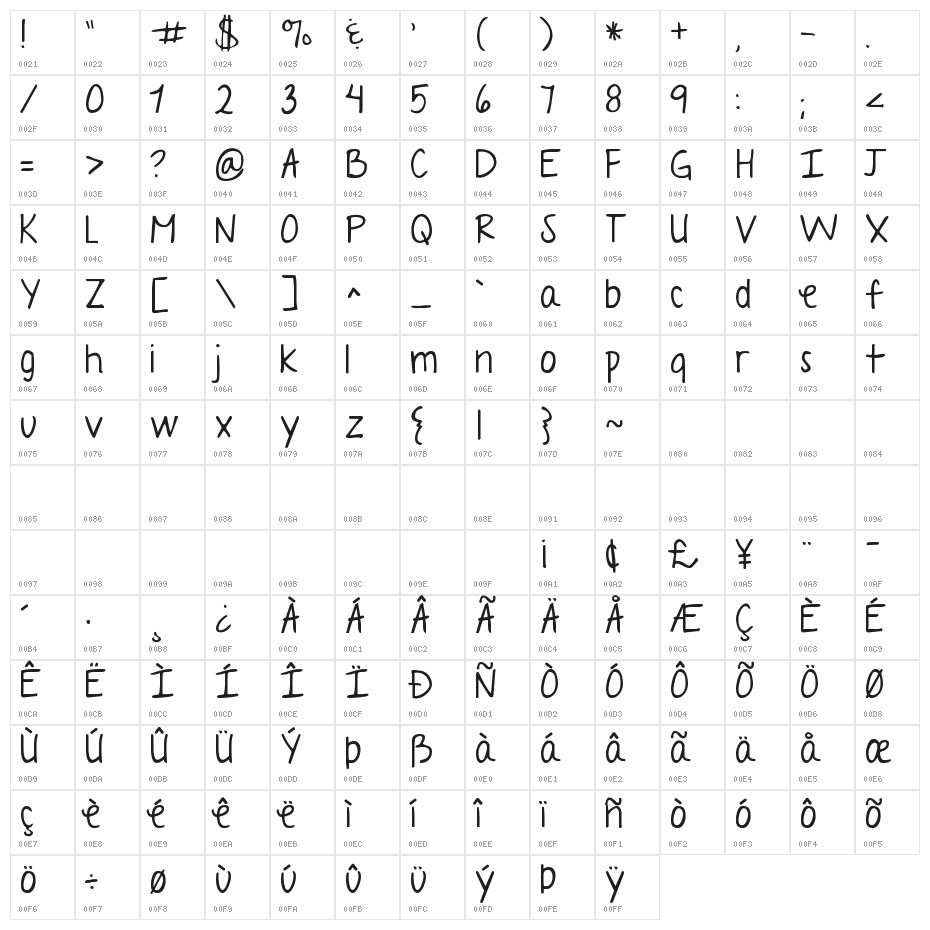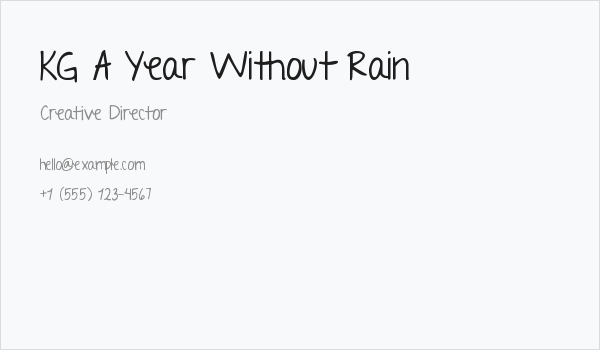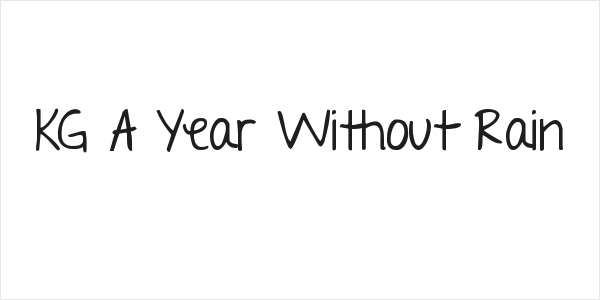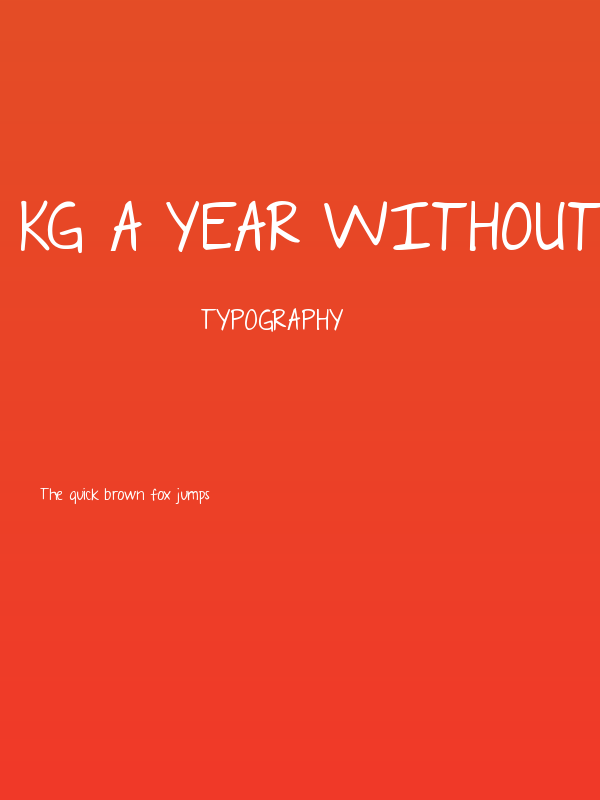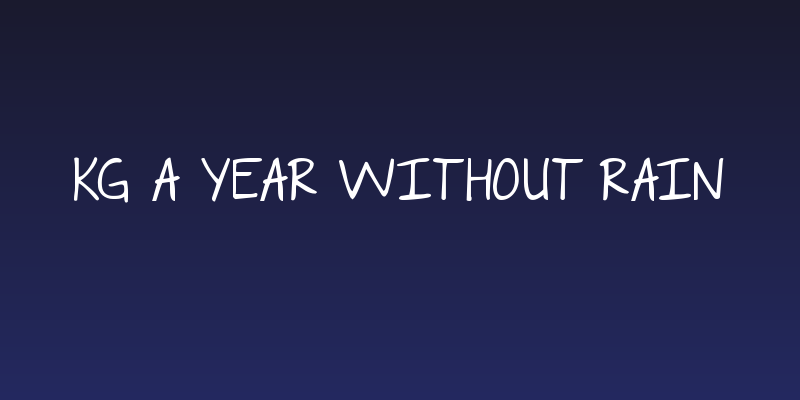
KG A Year Without Rain Font
KG A Year Without Rain Description
This playful and casual font features a handwritten style with a friendly and approachable appearance. The letters are slightly uneven, giving it an authentic, hand-drawn feel. The strokes are consistent in width, providing a uniform look across both uppercase and lowercase letters. The numbers and special characters maintain the same whimsical style, making it versatile for various uses. The font's informal nature makes it suitable for projects that require a personal touch, such as greeting cards, invitations, or children's books. Its legibility ensures it remains effective in conveying messages clearly.
| Use Case | Headlines, Informal text, Personal projects |
| Proposed Projects | Ideal for greeting cards, invitations, children's books, and personal projects. |